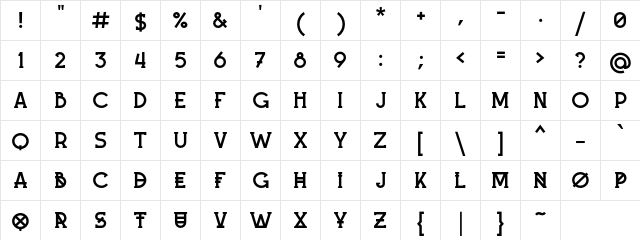
Mash-up Regular
| Foundry | Ilyas Yunusov |
| Designer | Ilyas Yunusov |
Design Context for Mash-up Typeface
Mash-up is a composed and adaptable typeface that performs quietly and consistently across a wide range of design contexts.